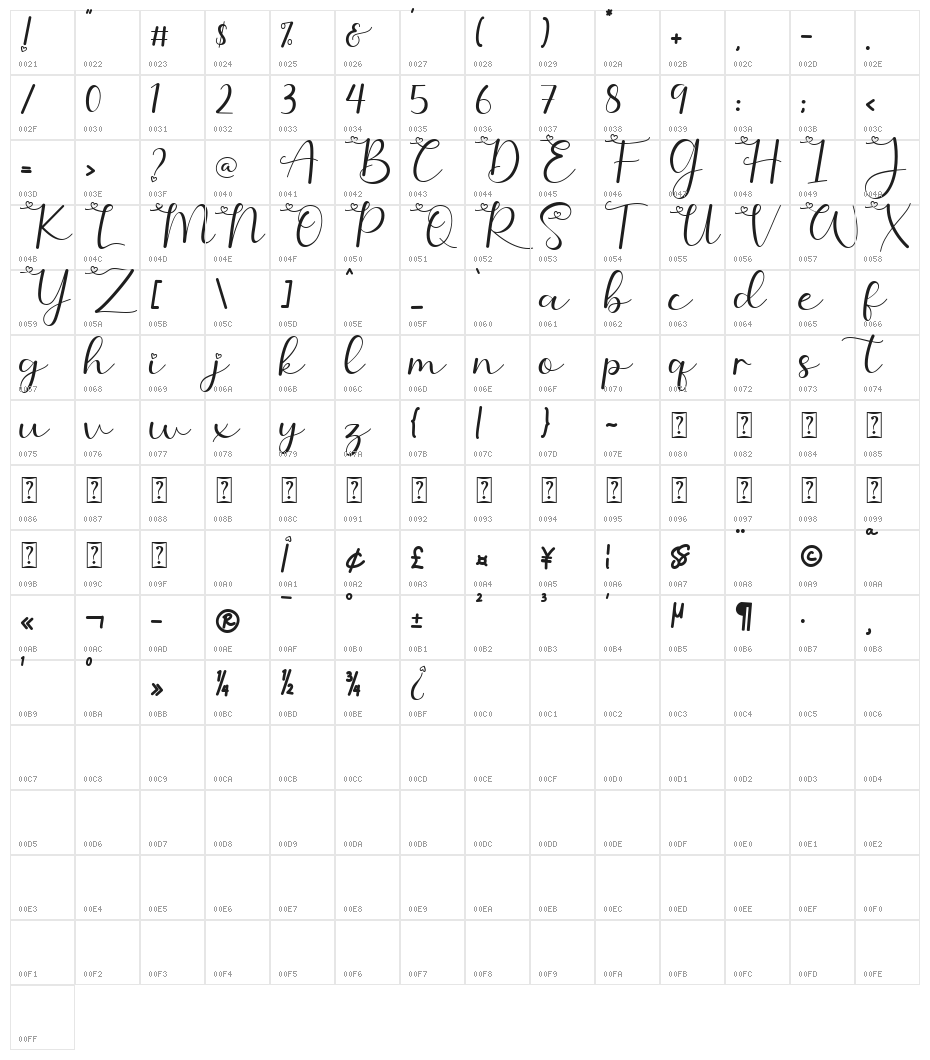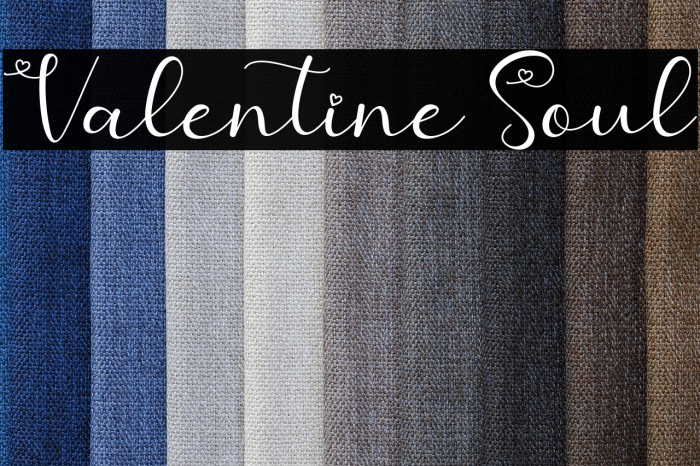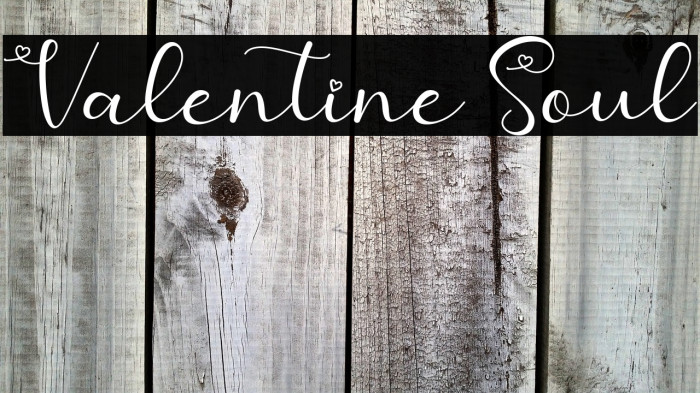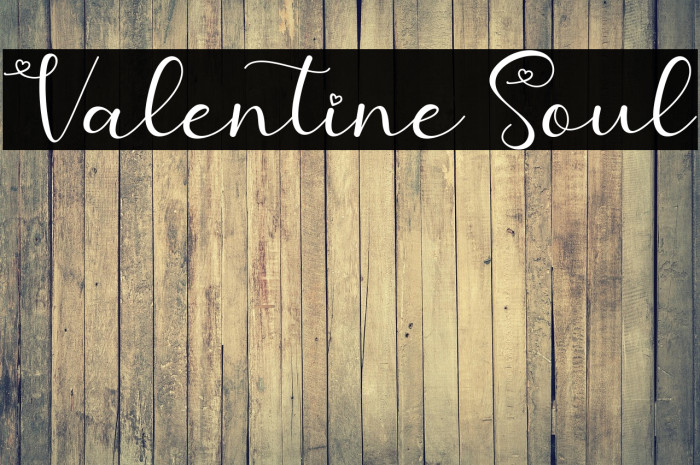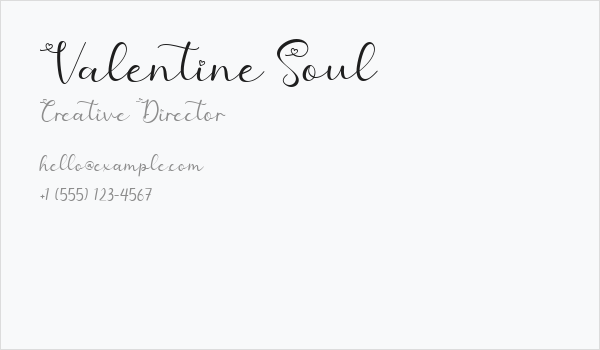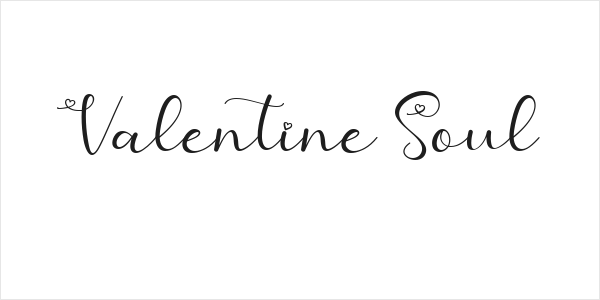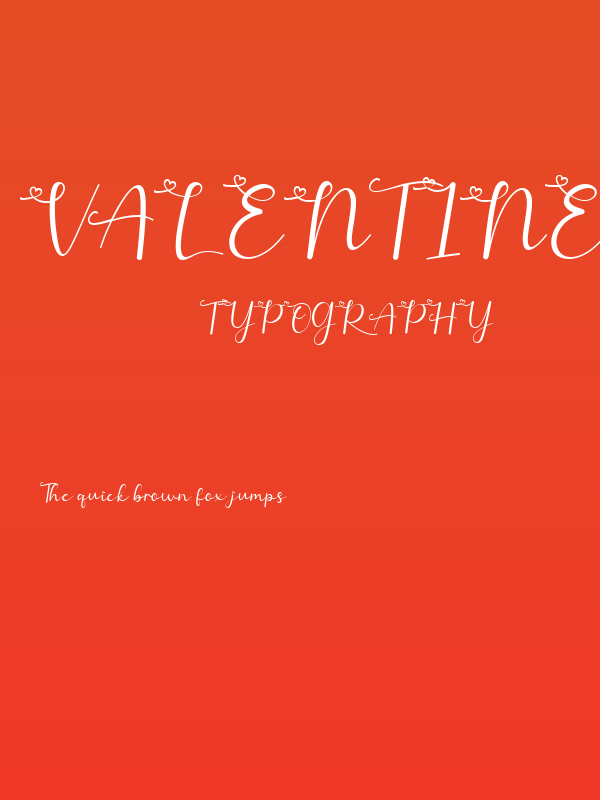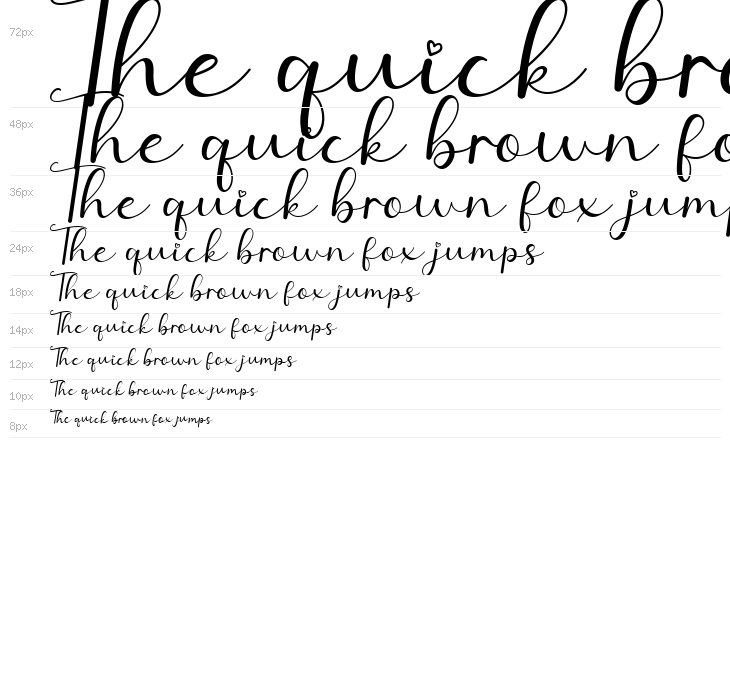
Valentine Soul Font
Valentine Soul Description
This font exudes a romantic and whimsical charm, characterized by its elegant script style. The uppercase letters are adorned with delicate heart motifs, adding a playful and affectionate touch. The lowercase letters flow smoothly with a handwritten feel, maintaining a consistent stroke width that enhances readability. The numerals are stylishly curved, complementing the overall aesthetic. Special characters are thoughtfully designed, integrating seamlessly with the rest of the font. This font's unique personality makes it ideal for projects that require a touch of romance and creativity.
| Overall Style | Romantic, Whimsical |
| Use Case | Headlines, Invitations, Decorative text |
| Proposed Projects | Ideal for wedding invitations, greeting cards, love letters, and romantic branding. |